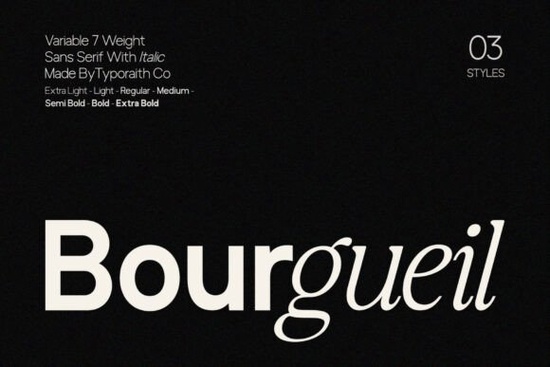
Bourgueil Font is a variable sans serif typeface that blends modern structure with clean elegance. Its seven weights and matching italic give you plenty of room to shape a visual message from whisper-quiet captions to bold headlines. If you’ve been searching for a typeface that handles branding, long-form editorial, and interface work without feeling stiff, Bourgueil deserves a close look.
This typeface keeps its personality subtle. The letterforms follow a balanced geometry, so the type never shouts over your content. You get a contemporary, professional voice that doesn’t slip into cold neutrality. That balance matters when you’re building a brand identity, laying out a magazine, or designing product sheets that must feel both approachable and reliable.
What makes Bourgueil a strong choice for branding?
Branding asks a lot from a typeface. It must work across different platforms, stay readable in tiny sizes, and still look distinctive in a logo. Bourgueil does that with rounded terminals and open apertures that keep the texture even. The variable font axis lets you fine-tune weight without switching files useful when you’re prototyping a mark one day and a multipage report the next. A small business might start with a lighter weight for packaging and quickly shift to a heavy weight for a trade show banner, all while keeping the same typographic DNA.
Is Bourgueil easy to read in body copy and long texts?
Yes. The regular and book weights were designed with editorial density in mind. The x-height sits high enough to keep lowercase shapes clear, and the spacing stays loose enough that paragraphs don’t feel cramped. You can use Bourgueil for a brochure, an employee handbook, or even a small print newsletter without common strain.
The italic style is genuinely useful too not just a slanted version of the roman. Boutique publications that need to call out quotes or emphasize a secondary voice will find the italic distinctive without pulling attention away from the main text. And because everything stays consistent across weights, you don’t get that jarring jump in color when you switch from light to bold mid-sentence.
How do the seven variable weights improve design flexibility?
With a single variable file you can dial in exactly the right visual weight for a headline, subhead, button, or label. That’s practical for:
- Web and mobile interfaces where you need to maintain crisp hierarchy at different screen sizes
- Print-on-demand products where a single design template might be tweaked for mugs, tees, and tote bags
- Social media graphics that demand quick changes from thin overlay text to heavy, center-stage statements
Instead of compromising with “close enough” weights from a static family, you can set a semi-bold that sits exactly between medium and bold. That kind of control helps a landing page feel cohesive or lets a stationery designer match the weight to a paper’s texture.
Which projects benefit most from Bourgueil?
Designers who juggle multiple visual tasks will appreciate the font’s adaptability. Here’s a short list of where Bourgueil really shines:
- Brand identity systems: logos, wordmarks, badges, and style guides
- Editorial spreads: magazines, lookbooks, annual reports
- Digital products: SaaS dashboards, e-commerce site headers, app onboarding screens
- Print-on-demand: memory cards, planner stickers, wall art with clean sans-serif quotes
- Social media templates: consistent type across carousel posts and story highlights
For crafters who design vinyl decals or single-line sketch fonts, the clean skeleton of Bourgueil might remind you of the precision found in Norfleet Sketch though that one’s a single-line face built for pen plotters and engraving. If you need a warm, organic counterpart to Bourgueil’s clinical clarity, Sunflower adds a gentle handwritten touch to sans-serif layouts, making it a thoughtful pairing for event invitations or mindful journal designs.
Where does Bourgueil fit among other modern sans serifs?
Many sans serif families lean either too neutral or too loud. Bourgueil sits in a comfortable middle. Its proportions echo classic humanist shapes but the variable technology keeps it looking fresh. Unlike novelty display fonts that fade after one season, this typeface can grow with a brand over years because it doesn’t rely on trends. Small businesses that want a timeless but not old-fashioned logo often find that Bourgueil delivers exactly that.
If you’re currently using a generic system font for your packaging or website, switching to Bourgueil will give you a more custom feel without making the design unrecognizable. The legibility remains high, so your audience will feel the difference but won’t consciously stumble over the letterforms.